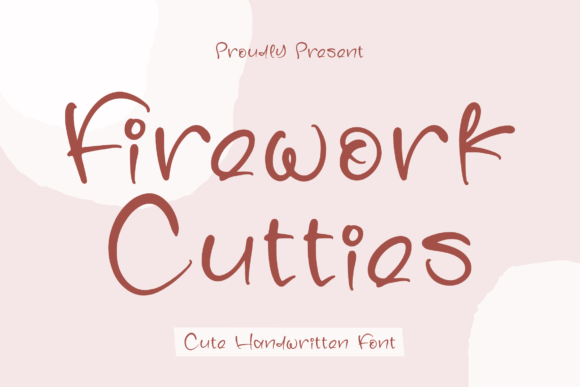
Dive into the world of captivating calligraphy with Firework Cutties Font, a true gem from the treasure trove of Letterfabric Studio. This enchanting script font, born from the stroke of a skilled hand, exudes a playful and charming aura that will add a touch of magic to any creative endeavor.
Firework Cutties Font is not just a collection of letters; it's an invitation to express your individuality and make a lasting impact. Whether you're crafting logos, branding projects, or designing homeware, this font will elevate your work with its unique and irresistible charm.
Picture your designs adorned with the elegance of Firework Cutties Font, transforming them into masterpieces that speak volumes. From product packaging and mugs to quotes, posters, and shopping bags, this font will breathe life into your creations, making them stand out from the ordinary.
But Firework Cutties Font's allure doesn't stop there. It's a font that seamlessly blends the traditional and the contemporary, making it a perfect fit for book covers, name cards, invitation cards, and greeting cards. Its versatility knows no bounds, adapting effortlessly to any project that demands a touch of sophistication and whimsy.
And let's not forget the world of photography, where Firework Cutties Font shines as a watermark, adding an artistic touch to your captured memories. From special events to everyday moments, this font will elevate your photos, transforming them into cherished keepsakes.
So, embark on a creative journey with Firework Cutties Font, a font that will ignite your imagination and leave an indelible mark on your designs. Experience the magic of Firework Cutties Font today and unlock a world of endless possibilities.